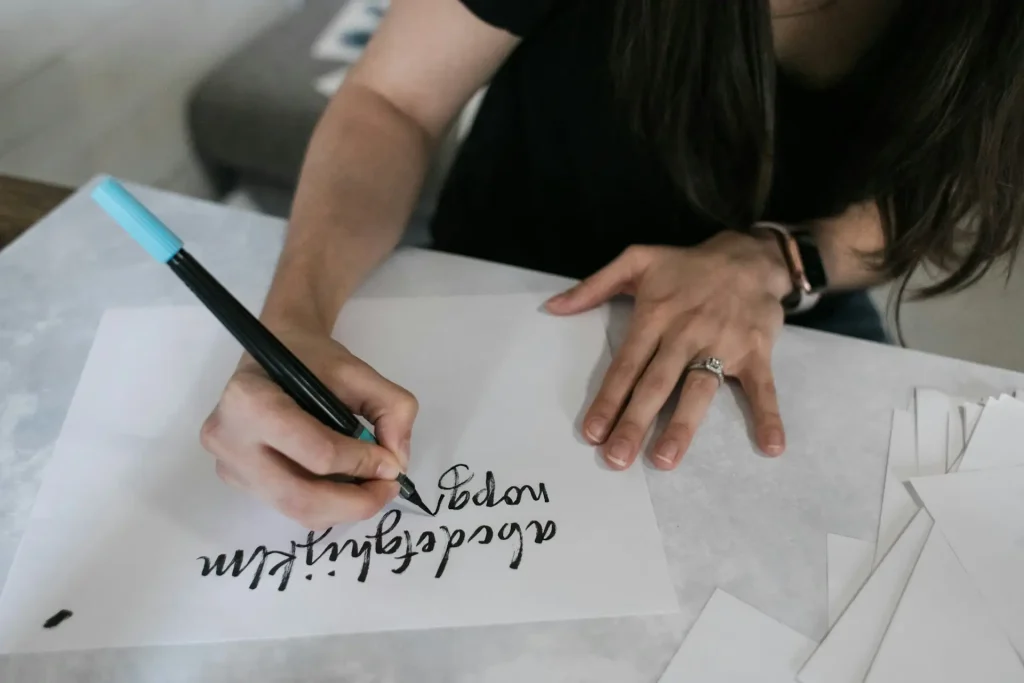
How to Choose the Right Font for Any Project
Typography isn’t just decoration — it changes how people experience what you’re making. A font can make a brand feel premium, playful, trustworthy, modern, or completely forgettable within a few seconds. I’ve seen beautifully designed layouts fall apart simply because the typography didn’t match the mood or audience.
And honestly, choosing the right font for a project can feel weirdly harder than choosing colors sometimes. There are thousands of options, and after scrolling through font libraries for an hour, everything starts looking the same.
The good news is that font selection gets much easier once you understand a few practical principles. You don’t need to memorize typography theory to make solid choices. You just need a reliable process.
This guide breaks down how to choose the right font for any project in a way that actually helps when you’re staring at a blank design file wondering what to use.
1. Understand the Purpose of Your Design
Before opening font websites or testing typefaces, pause for a minute and think about what the project actually needs to communicate.
That sounds obvious, but it saves a lot of time.
A font for a luxury skincare label should not feel like a font for a gaming thumbnail. A wedding invitation doesn’t need the same tone as a fintech app. The “best” font depends entirely on context.
When I’m choosing fonts for blog graphics or Pinterest pins, I usually ask myself a few quick questions first:
- Who’s going to read this?
- Is this meant to feel formal or casual?
- Will people read long paragraphs or just headlines?
- Is the design supposed to feel modern, vintage, elegant, playful, technical, or creative?
- Where will this font appear most often — mobile screens, print, packaging, social media?
Those answers narrow things down fast.
For example:
- A law firm website usually benefits from restrained serif fonts or clean sans serifs.
- Kids’ products often work better with softer rounded fonts.
- Tech startups lean heavily toward minimal sans serif typography because it feels cleaner and more current on screens.
- Handmade brands can use script or handwritten fonts carefully to add personality.
The biggest mistake is choosing a font only because it “looks cool” in the preview image. Fonts behave very differently once you place real text into a layout.
I’ve downloaded fonts that looked amazing on Creative Fabrica previews, then completely fell apart when used in smaller paragraph text. Tight spacing, awkward punctuation, strange numbers — little things you only notice during real use.
That’s why purpose comes first. this is where font psychology in design plays a vital role.
2. Learn the Main Font Categories
Understanding categories simplifies font selection:
| Font Type | Description | Best For |
|---|---|---|
| Serif | Traditional, formal, trustworthy | Print, editorial, branding |
| Sans Serif | Modern, minimal, clean | Web design, apps, UI |
| Script / Handwriting | Artistic, emotional | Invitations, logos |
| Display / Decorative | Expressive, bold | Posters, titles, ads |
Knowing the difference between serif vs sans serif fonts helps you communicate more effectively.
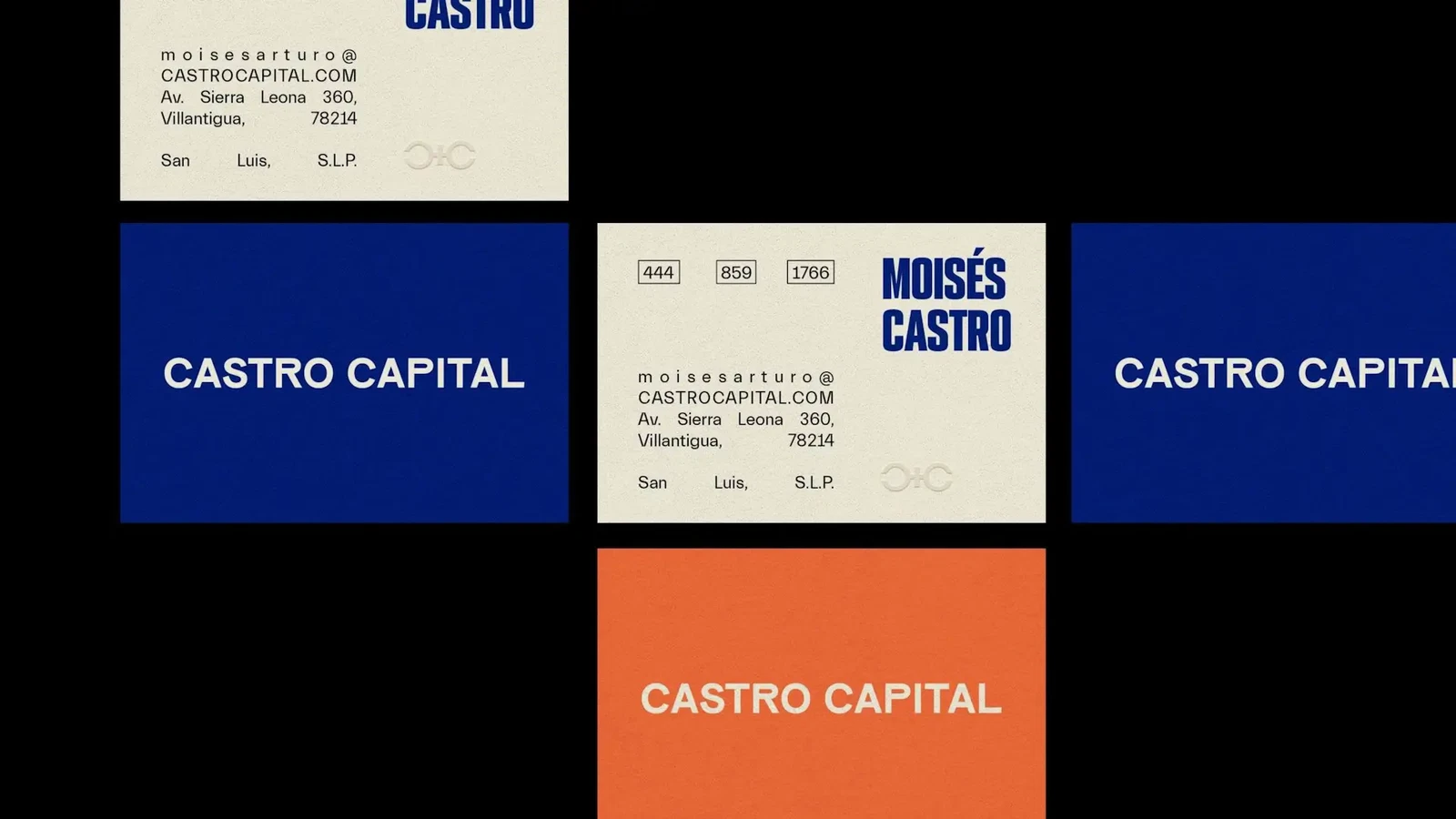
3. Prioritize Readability and Legibility
This part gets ignored way too often.
A font can match the mood perfectly and still fail if people struggle to read it.
Readability matters more than style in most real-world projects.
Some fonts look stunning in a logo preview but become frustrating in body text, especially on mobile devices. Thin strokes disappear. Tight spacing blends letters together. Decorative details create visual noise.
I usually test fonts in three ways before committing:
- Desktop view
- Mobile view
- Smaller sizes
Mobile testing catches problems fast.
A font that feels elegant at 72px may become nearly unreadable at 14px. This happens a lot with ultra-thin modern fonts. They look polished in mockups but lose clarity on actual screens.
Things that improve readability:
- Balanced letter spacing
- Clear distinction between similar letters
- Comfortable line height
- Moderate contrast
- Open shapes
Things that often hurt readability:
- Excessive flourishes
- Extremely condensed fonts
- Overly thin weights
- All caps in long paragraphs
- Tight spacing
One thing I’ve noticed while designing blog graphics: readability usually wins over originality. People remember clear communication more than fancy typography tricks.
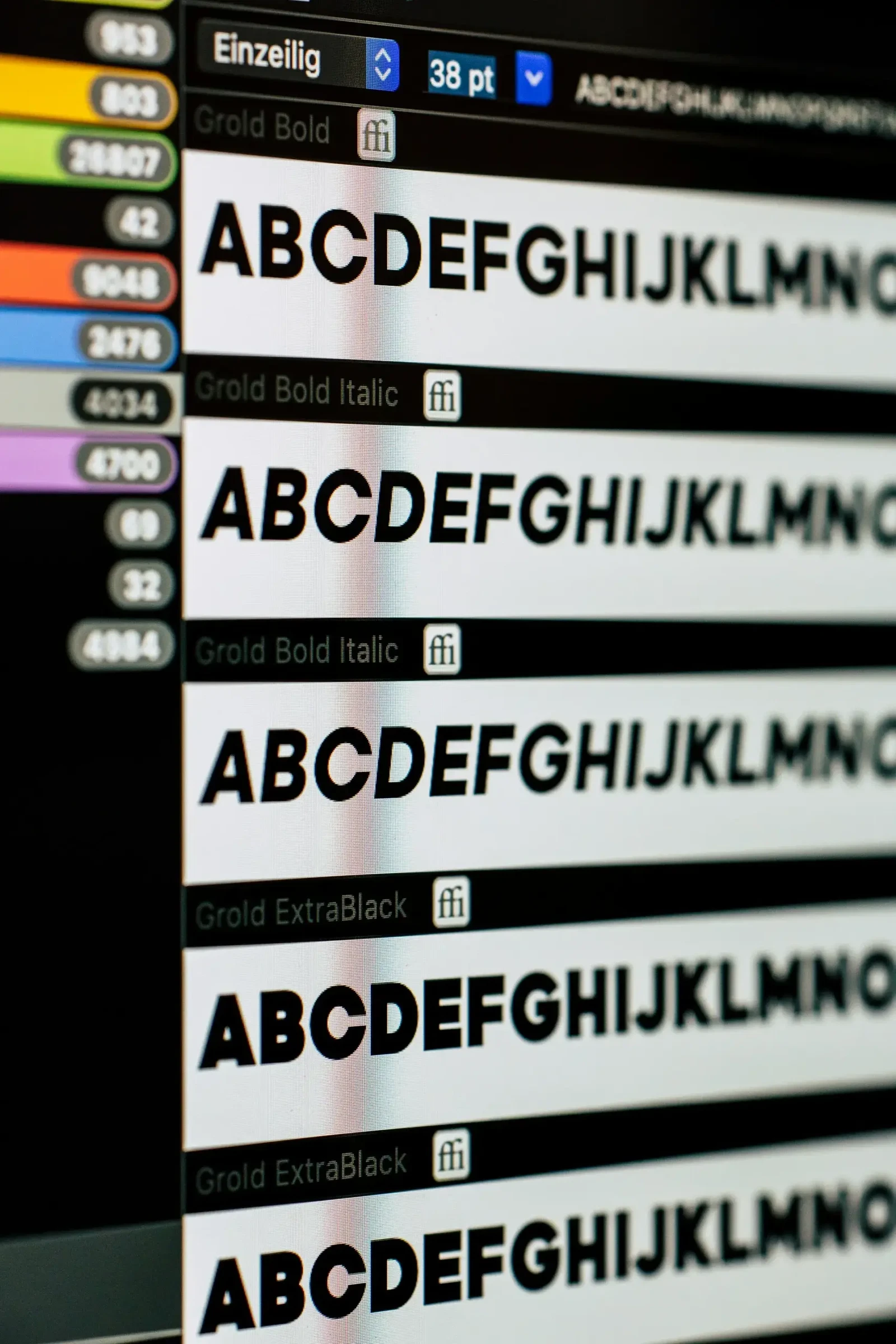
4. Understand Font Psychology
FFonts quietly shape emotion.
Even people who know nothing about typography react emotionally to type choices without realizing it.
That’s font psychology in action.
A sharp geometric sans serif can feel futuristic. A soft rounded font feels friendlier. A classic serif suggests authority. Handwritten fonts feel more personal.
How many fonts should I use in one design?
Two font families are enough for most projects. One for headings and one for body text usually creates a clean, balanced layout.
Why do fonts look different on different devices?
Operating systems and browsers render typography differently. Testing across devices helps catch spacing or readability issues early.